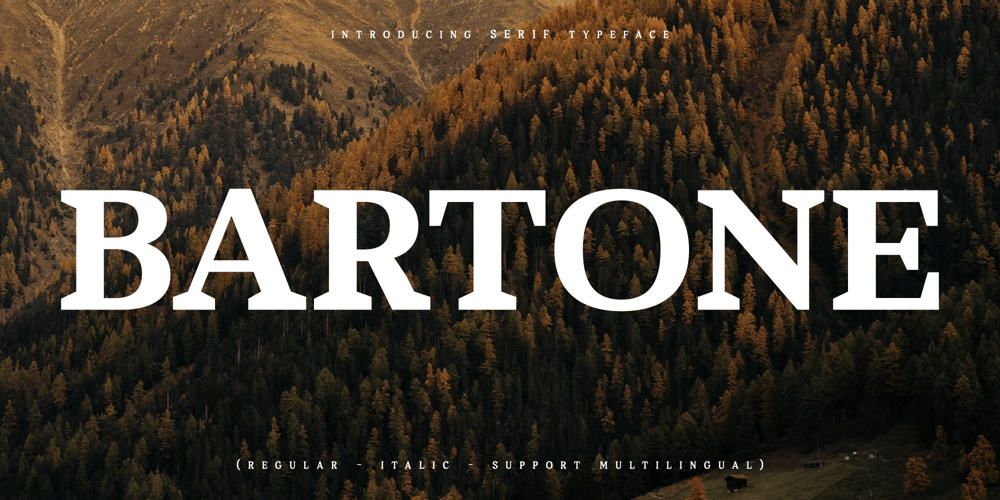
Bartone
Bartone Font Family was designed by Heru Utama Putra and published by Letterena Studios. Bartone contains 2 styles and family package options. Bartone is a modern and classic serif typeface that has its own unique style and modern look. This typeface is perfect for an elegant & luxurious logo, book or movie title design, fashion brand, magazine, clothes, lettering, quotes, and so much more.